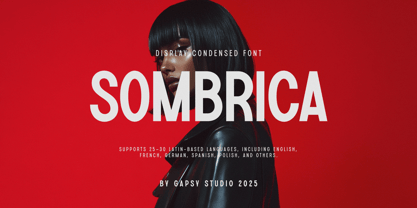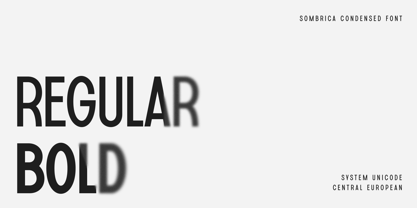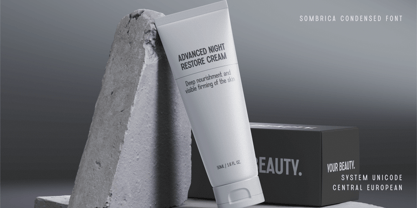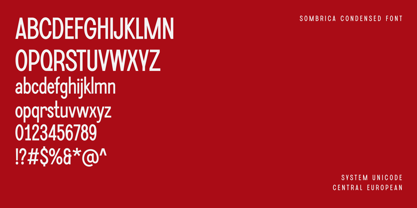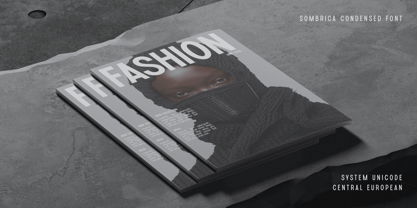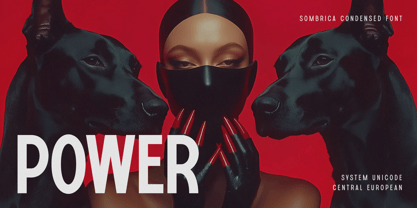
Sombrica
Sombrica is a modern display typeface designed for use in bold headlines, branding, and editorial applications.
It features high contrast, elegant geometry, and a clean, minimal style — perfect for fashion, packaging, or digital layouts.